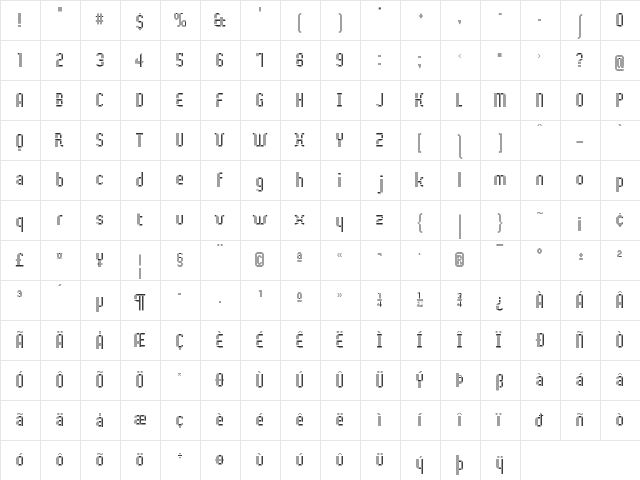
Ligne Claire Regular
| Designer | Ricardo Cordoba |
Design Context for Ligne Claire Typeface
Ligne Claire takes a measured approach to typography — its balanced proportions and neutral character make it a reliable workhorse for both digital and print work.